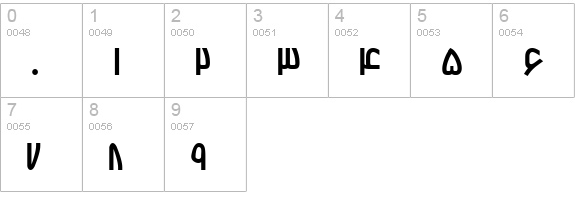
B Bardiya Bold Font Details
B Bardiya Bold is a strong, high-contrast variant in the B typeface family \xE2\x80\x94 well suited to headlines, attention-grabbing titles, and strong calls-to-action.
B Bardiya Bold is a stunning and versatile font that exudes confidence and modernity. With its bold and striking appearance, this font commands attention and adds a touch of sophistication to any design project. The clean lines and strong curves of B Bardiya Bold make it perfect for headlines, logos, branding, and more. What makes B Bardiya Bold even more appealing is that it is available for free download at FontsMarket.com. Now you can easily elevate your designs with this eye-catching font without breaking the bank. Whether you are a professional designer looking for a standout typeface or a beginner exploring new design possibilities, B Bardiya Bold is the perfect choice for your next project. Download it for free today and let your creativity shine!